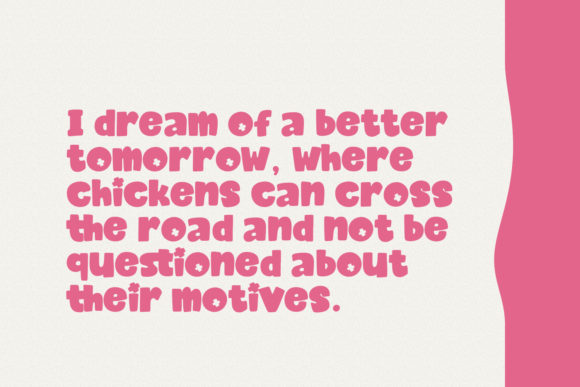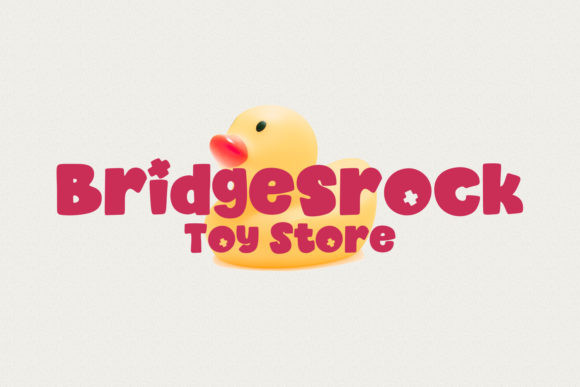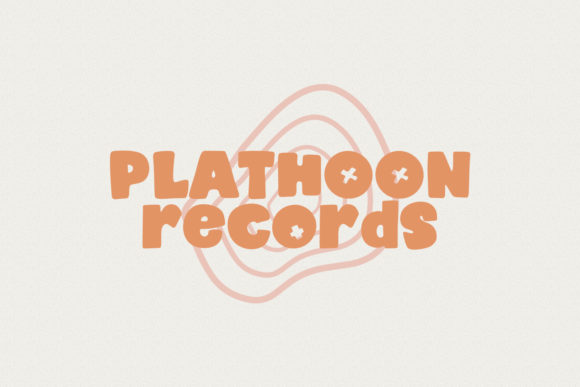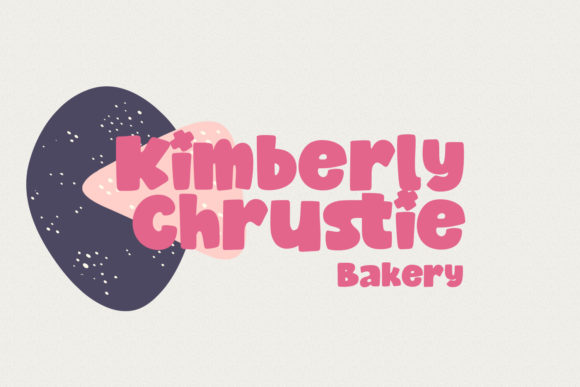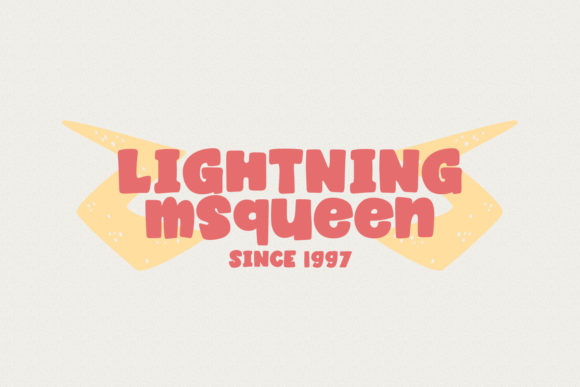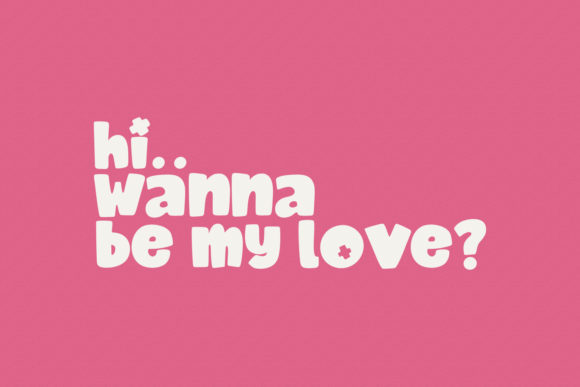
Fever Coaster Font: The Ultimate Choice for Fun and Playful Designs
Are you a designer or crafter looking for a font that can add a touch of fun and playfulness to your creations? Look no further than the Fever Coaster Font! This cool, chunky lettered, and fun display font is perfect for cartoon-related designs, children’s games, and any project that requires a lovely touch.
What Makes Fever Coaster Font So Special?
Fever Coaster Font is a unique and eye-catching font that is sure to make your designs stand out. Its chunky letters and fun design make it perfect for creating playful and engaging content. Whether you’re designing a logo, a poster, or a children’s book, this font is sure to add a touch of personality and whimsy to your work.
Key Features of Fever Coaster Font
- Cool and Chunky Letters: The Fever Coaster Font features cool and chunky letters that are sure to grab attention.
- Fun Display Font: This font is perfect for creating fun and playful designs that require a display font.
- Cartoon-Related Designs: The Fever Coaster Font is perfect for cartoon-related designs, such as character designs, logos, and posters.
- Children’s Games: This font is also great for children’s games, such as puzzles, quizzes, and activity sheets.
- Lovely Touch: The Fever Coaster Font adds a lovely touch to any design, making it perfect for projects that require a playful and whimsical feel.
- Use it as a Display Font: The Fever Coaster Font is perfect for use as a display font, such as in headings, titles, and logos.
- Pair it with Other Fonts: You can pair the Fever Coaster Font with other fonts to create a unique and interesting design.
- Experiment with Colors: The Fever Coaster Font looks great in a variety of colors, so don’t be afraid to experiment and find the perfect color for your design.
- Unique and Eye-Catching: The Fever Coaster Font is a unique and eye-catching font that is sure to make your designs stand out.
- Playful and Whimsical: This font adds a playful and whimsical touch to any design, making it perfect for projects that require a fun and lighthearted feel.
- Versatile: The Fever Coaster Font is versatile and can be used in a variety of designs, from cartoon-related designs to children’s games.
In conclusion, the Fever Coaster Font is a cool, chunky lettered, and fun display font that is perfect for designers and crafters looking to add a touch of fun and playfulness to their creations. Its unique and eye-catching design makes it perfect for cartoon-related designs, children’s games, and any project that requires a lovely touch. So why not give it a try and see how it can elevate your designs?
- Use it with Patterns: The Fever Coaster Font looks great with patterns, such as polka dots, stripes, and chevrons.
- Experiment with Textures: You can add texture to the Fever Coaster Font to give it a more playful and whimsical feel.
- Try Different Colors: The Fever Coaster Font looks great in a variety of colors, so don’t be afraid to try different colors and find the perfect one for your design.